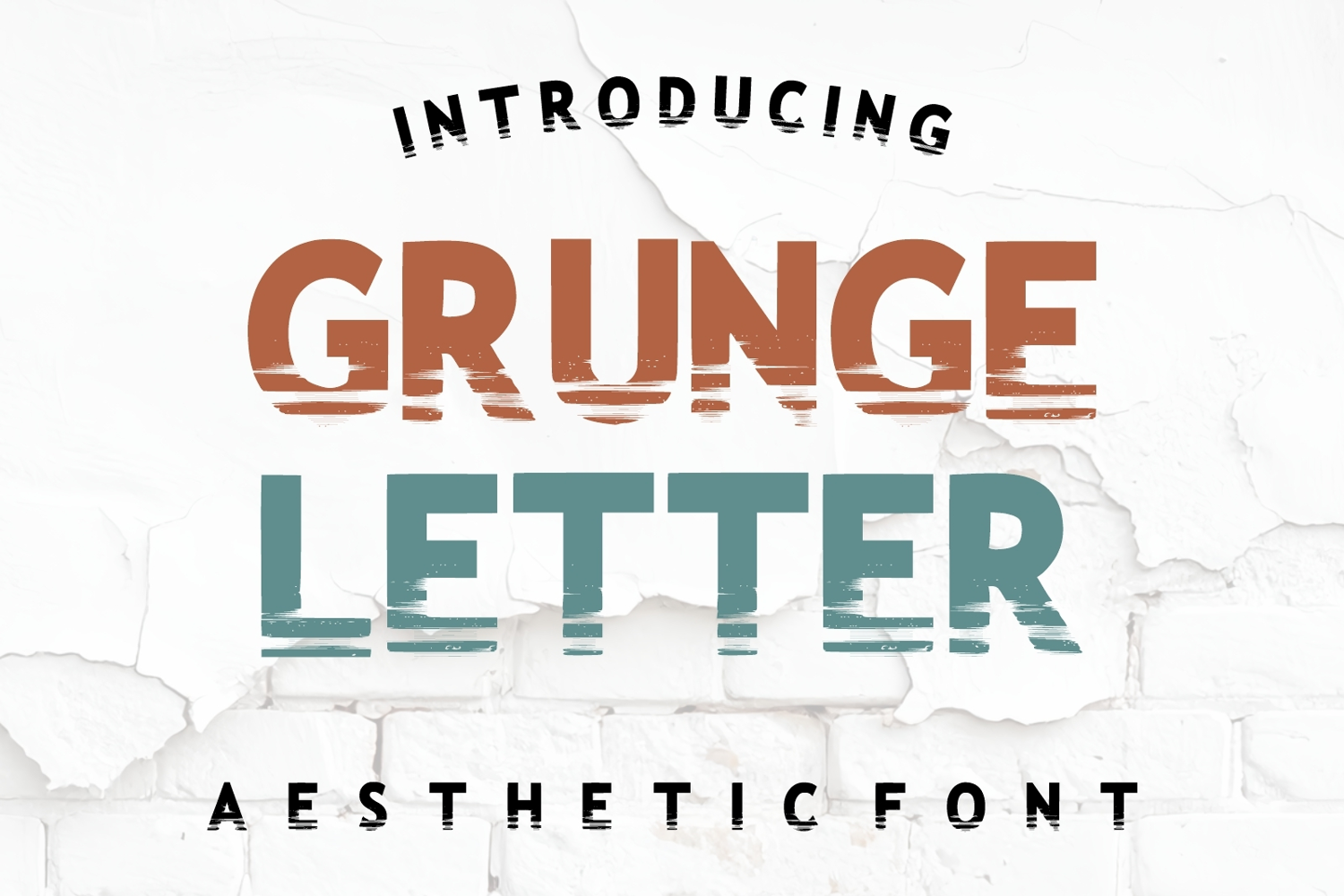
Grunge Letter
Grunge Letter Raw & Textured Brush Display Font
Get ready to make a bold statement with Rustic Grunge, a hand-painted brush display font that exudes raw energy and authenticity. With its rough, textured strokes and imperfect edges, this font captures the spirit of grunge, street art, and urban design.